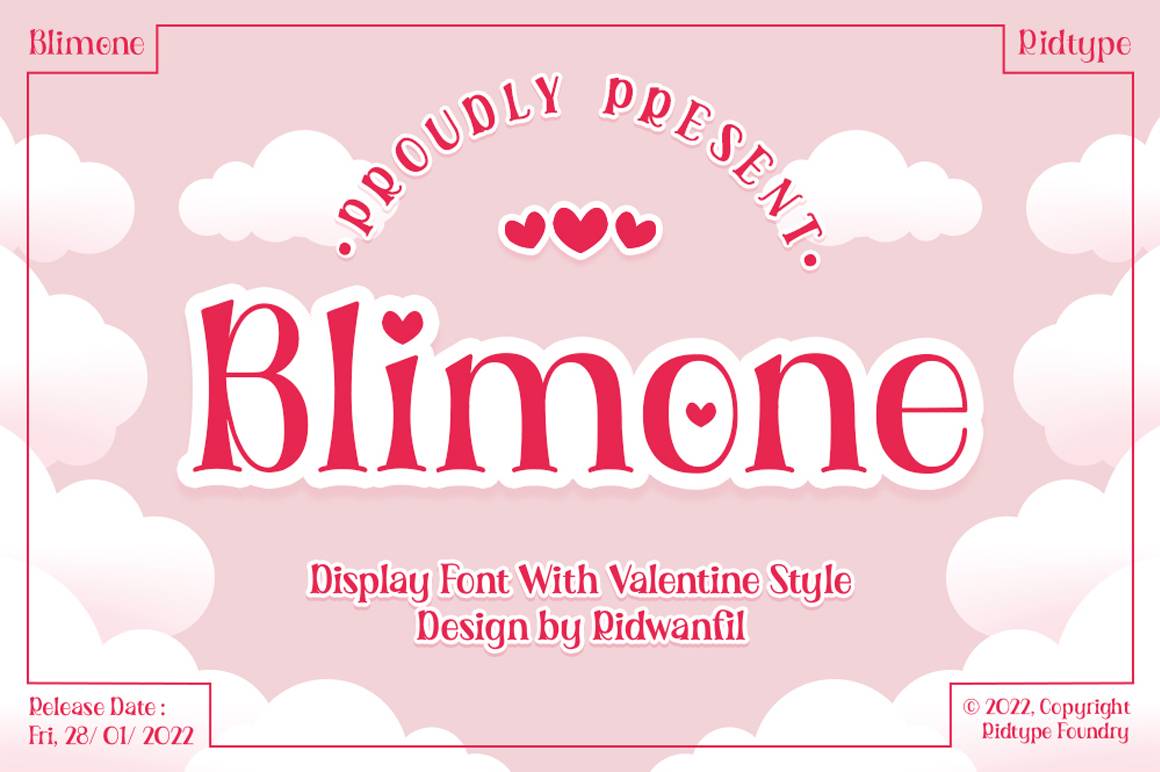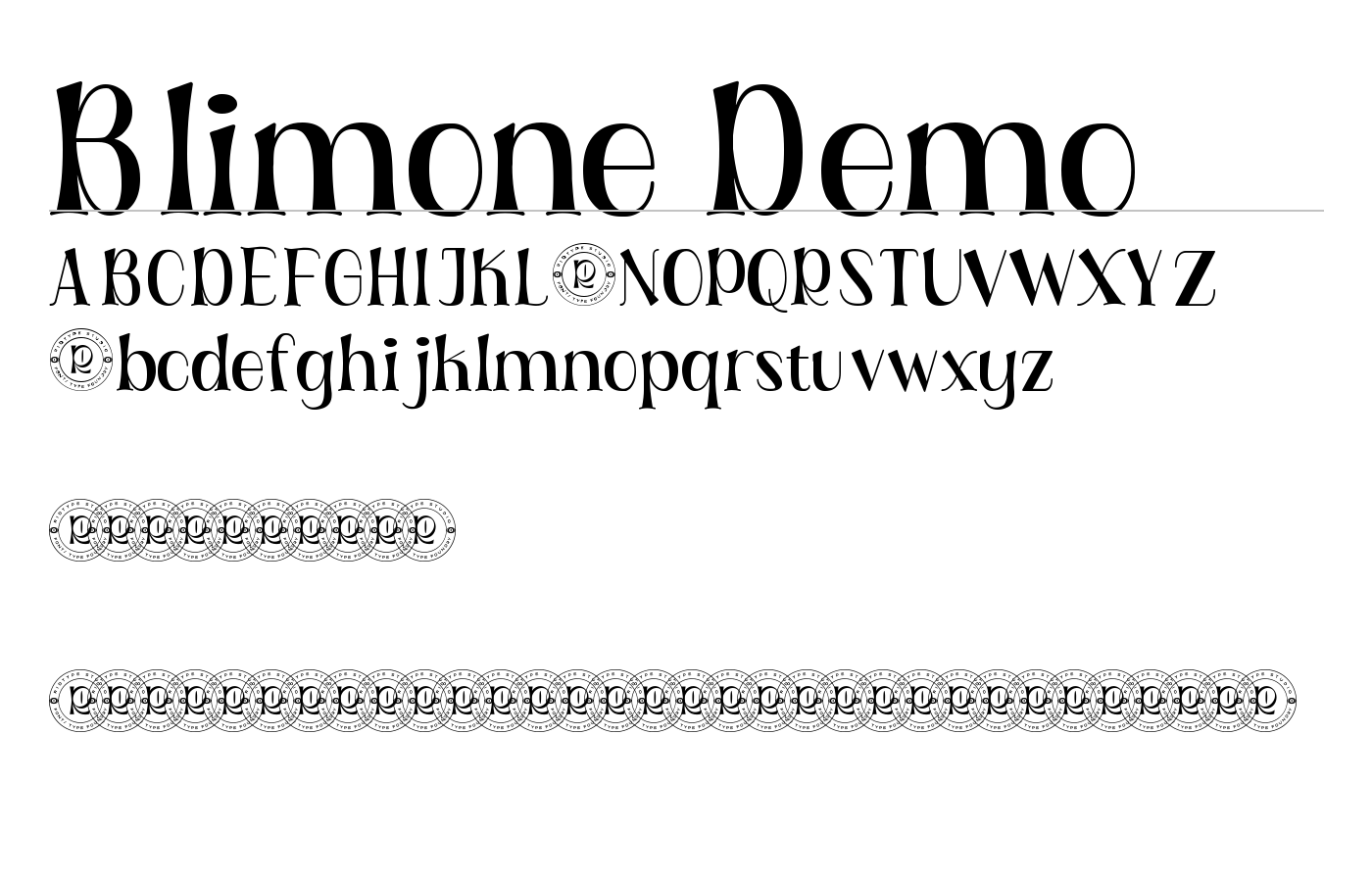
Blimone is a quirky serif font with a tall, narrow structure and whimsical, slightly irregular letterforms that give it a playful yet elegant character. Its high contrast strokes and distinct, almost hand-drawn details make it ideal for creative headlines, branding, and editorial projects that seek a unique and artistic vibe. This font stands out best where personality and visual interest are desired, adding charm and sophistication to fashion, packaging, and display use.
Blimone Font
About Blimone Font